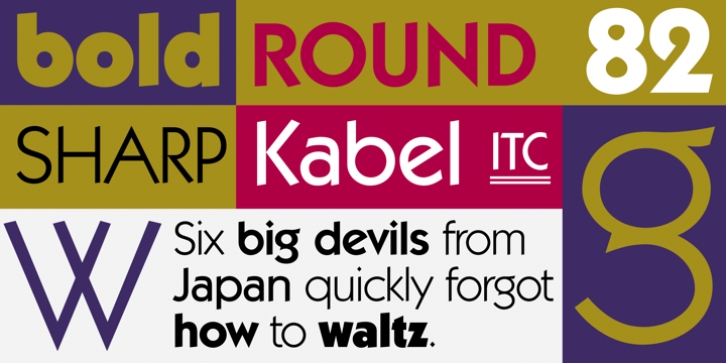
Designed by Rudolf Koch and released in 1927 by the Klingspor foundry in Germany, Kabel is named in honor of the laying of the first trans-Atlantic telephone cable. In 1975, under special license from D. Stempel AG, the International Typeface Corporation redrew the family and added a fifth weight. Geometric proportions are combined with humanistic features in this unusual sans serif typeface; ITC Kabel has a very large x-height.